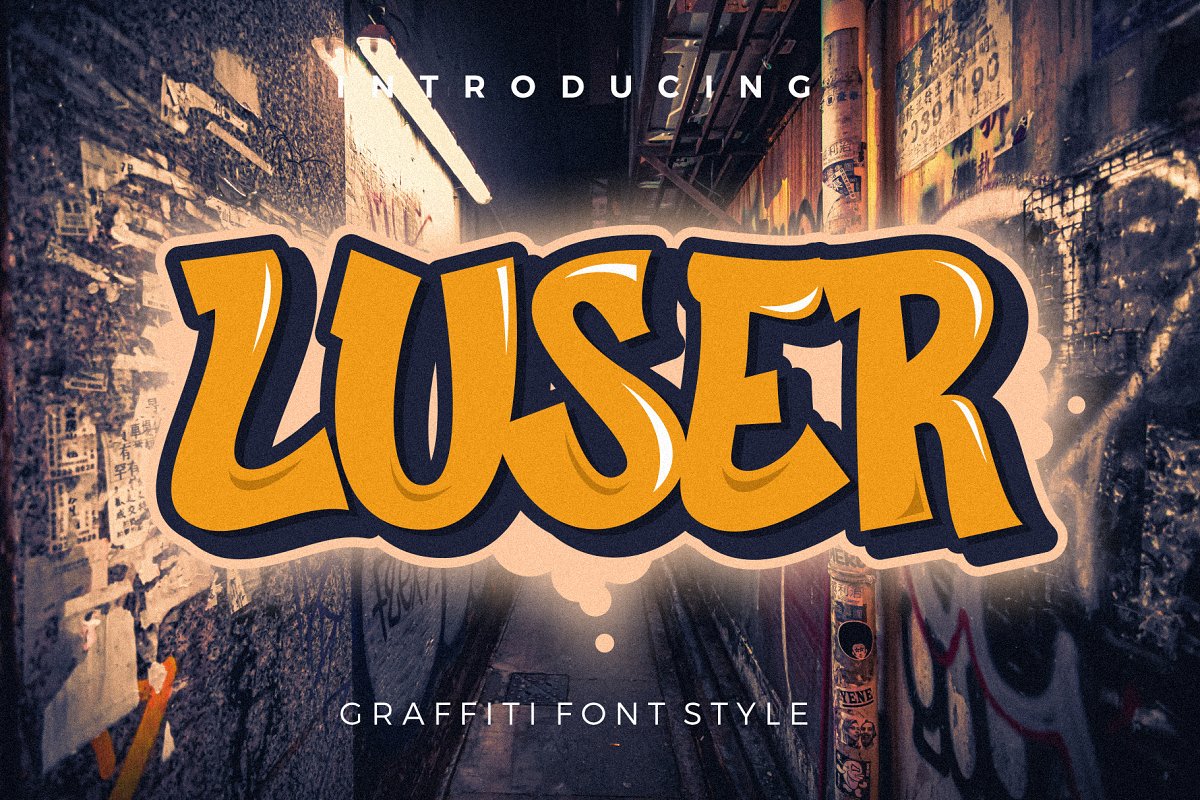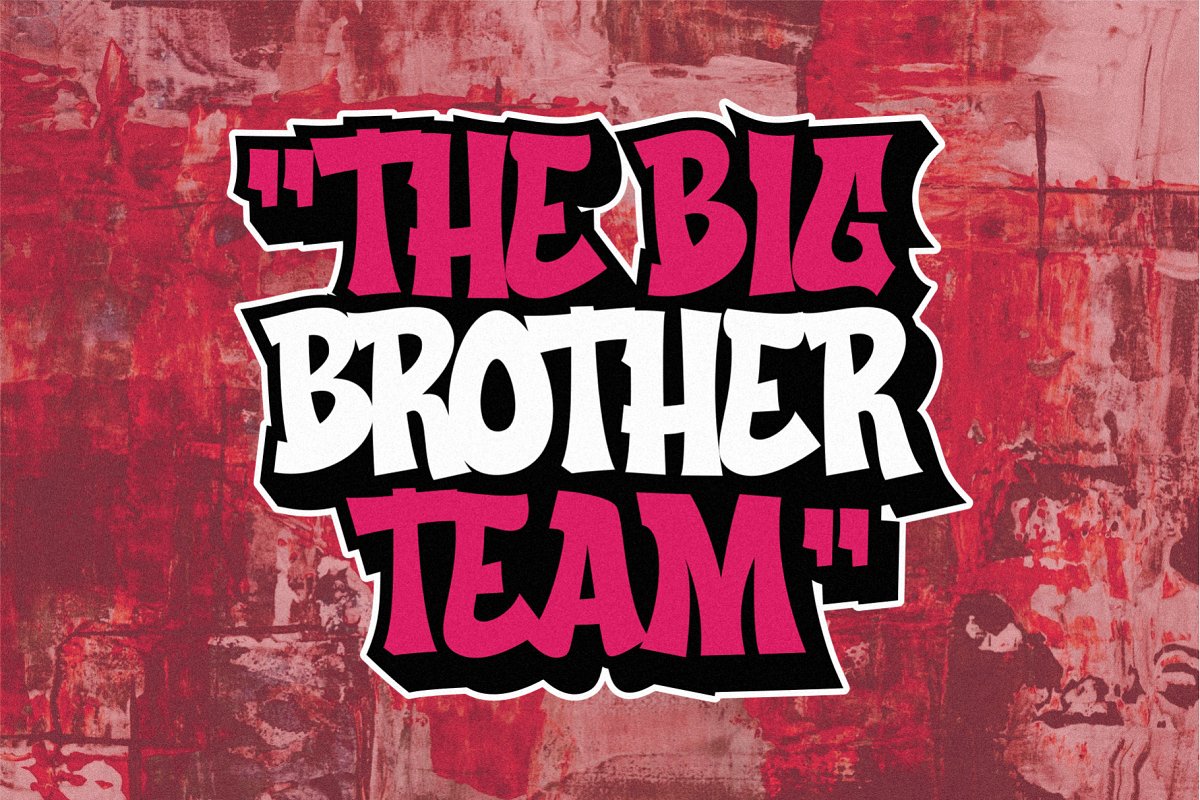
About the Luser Graffiti Typeface
Luser is a font inspired by modern street art works of hip-hop music and graffiti, What you get:Luser (OTF, TTF, WOFF, WOFF2)Features:NumeralPunctuationSupport in Mac and Windows OSEasy to installEnjoy wit this font, Thanks so much for purchase 🙂